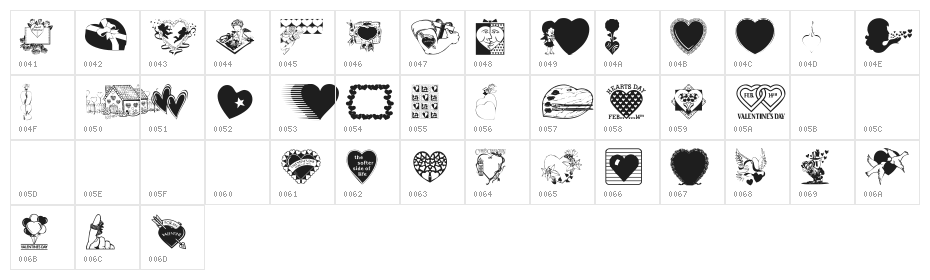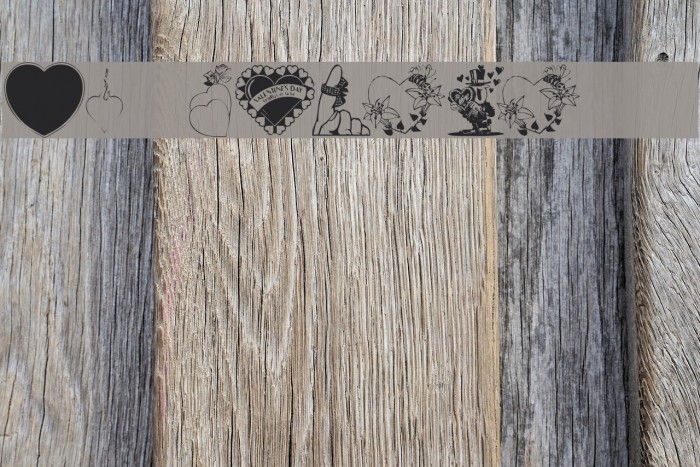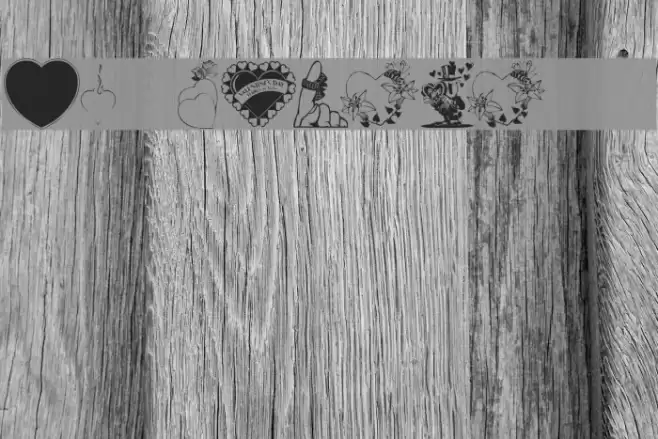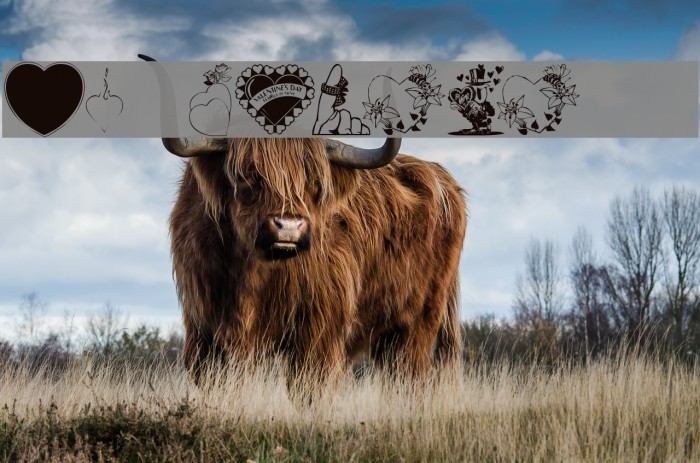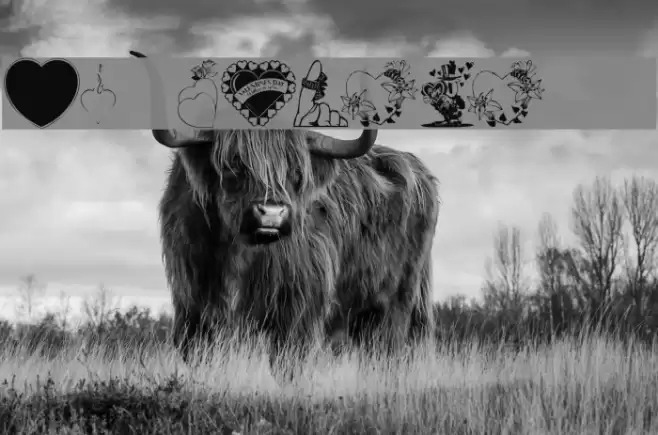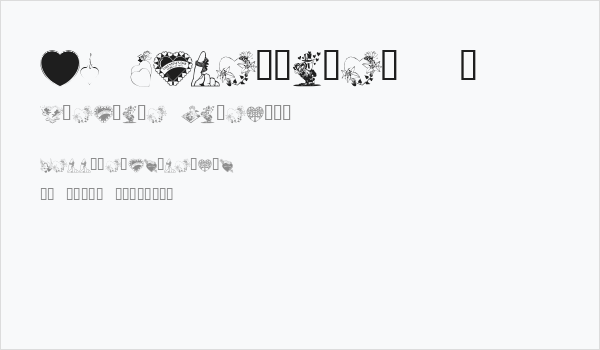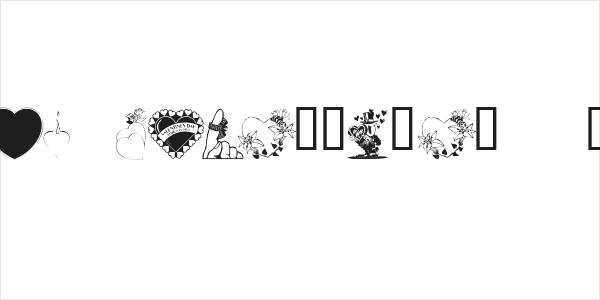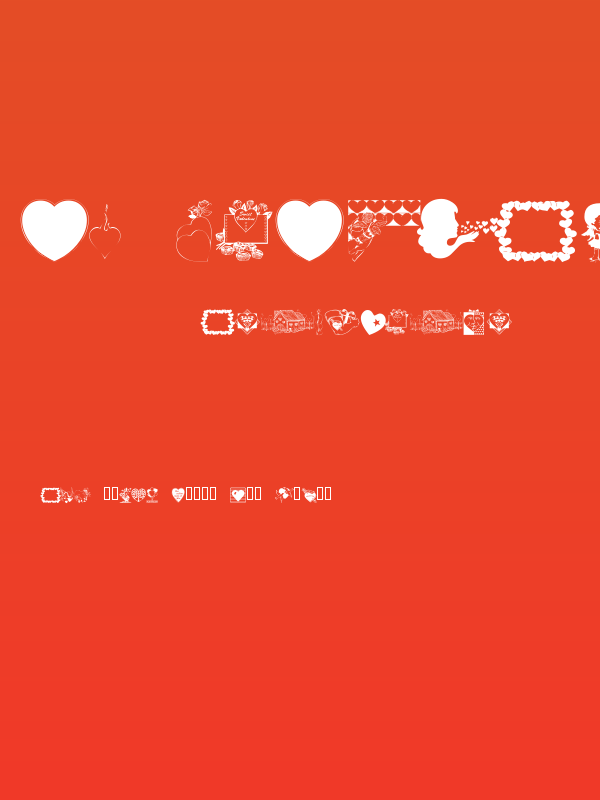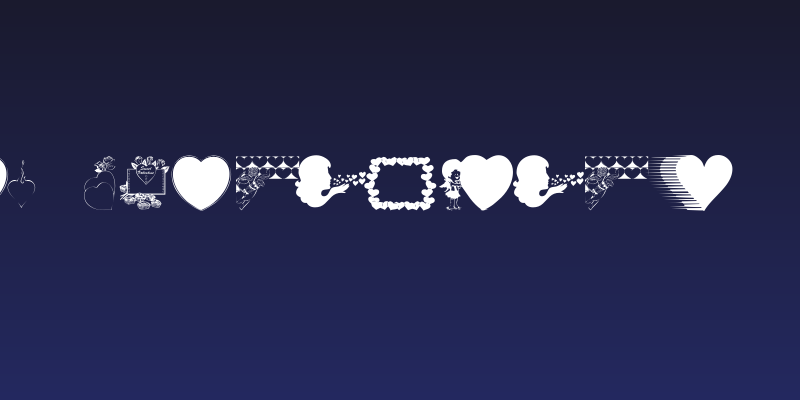
LM Valentines 1 Font
LM Valentines 1 Description
A decorative dingbat font featuring a variety of ValentineΓ’β¬β’s Day-themed illustrations, including hearts, cupids, flowers, and romantic motifs. Each character is represented by a unique, detailed black-and-white graphic rather than traditional alphanumeric glyphs.
| Overall Style | Decorative, Thematic, Playful |
| Use Case | Decorative elements, Themed graphics, Craft projects |
| Proposed Projects | Greeting cards, event invitations, scrapbooking, themed posters, decorative borders. |